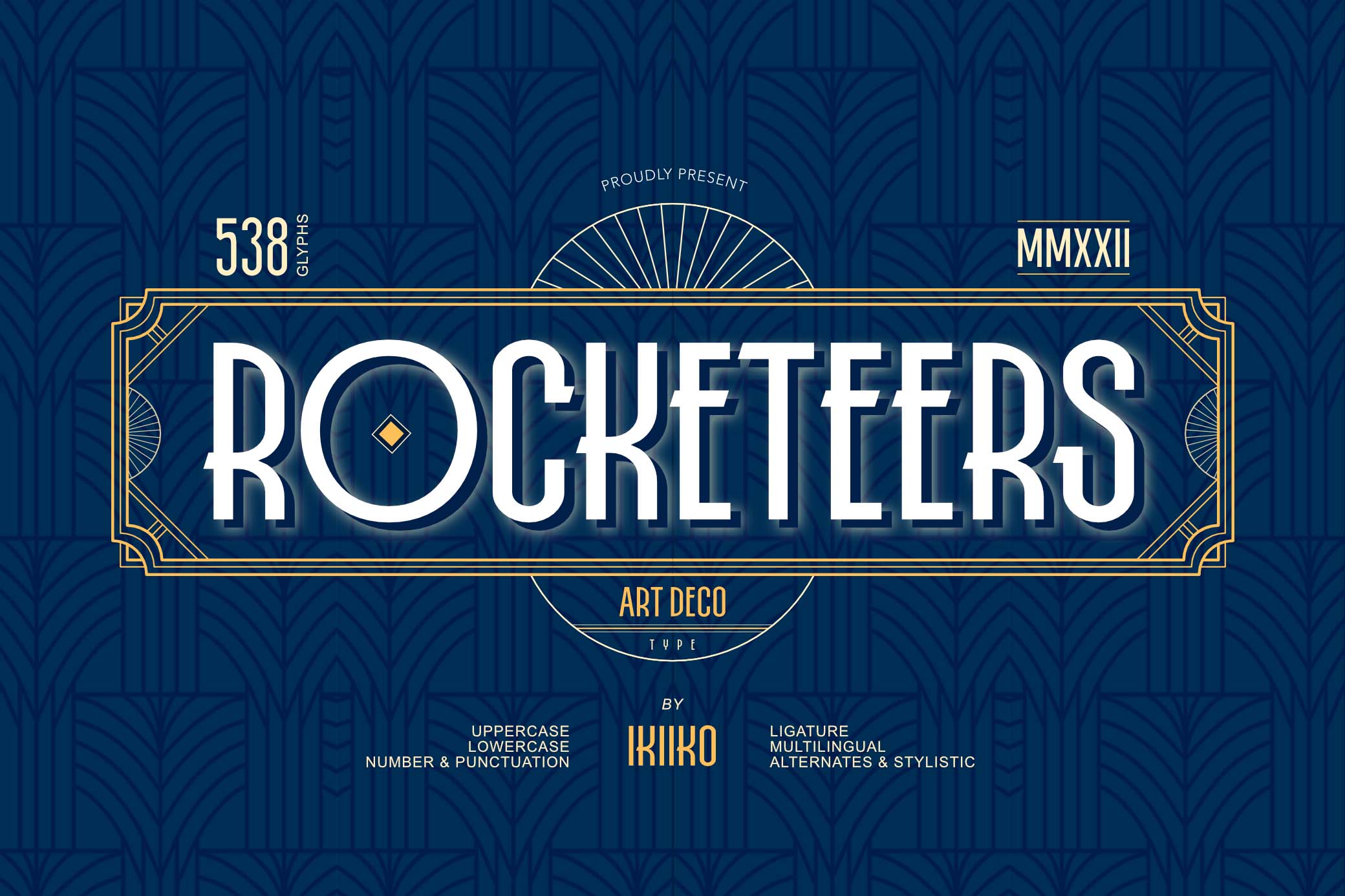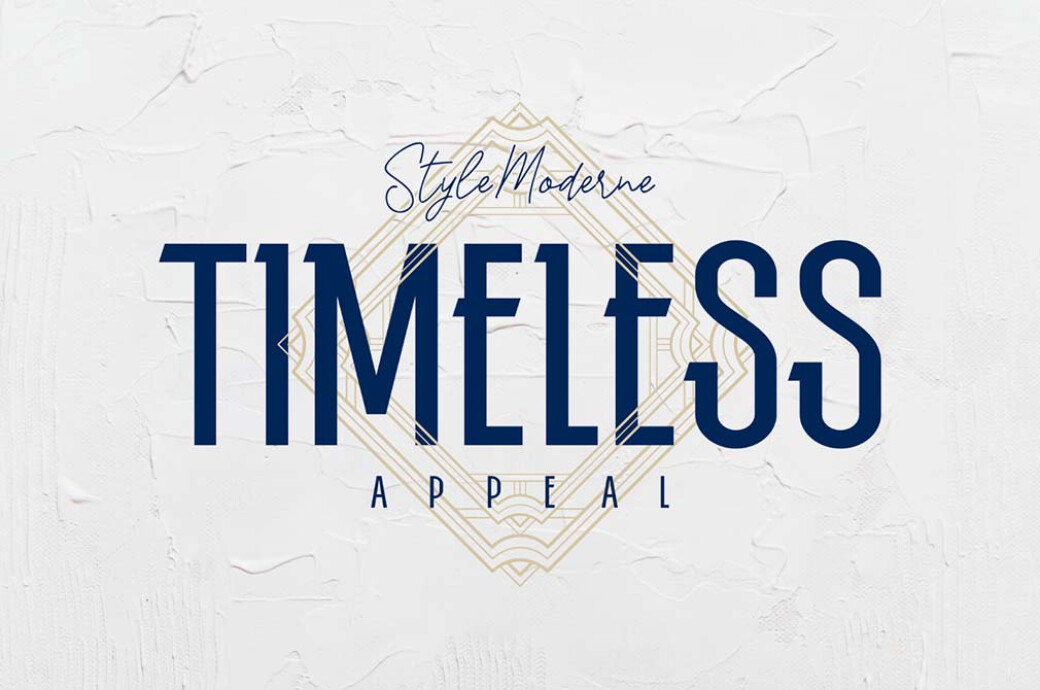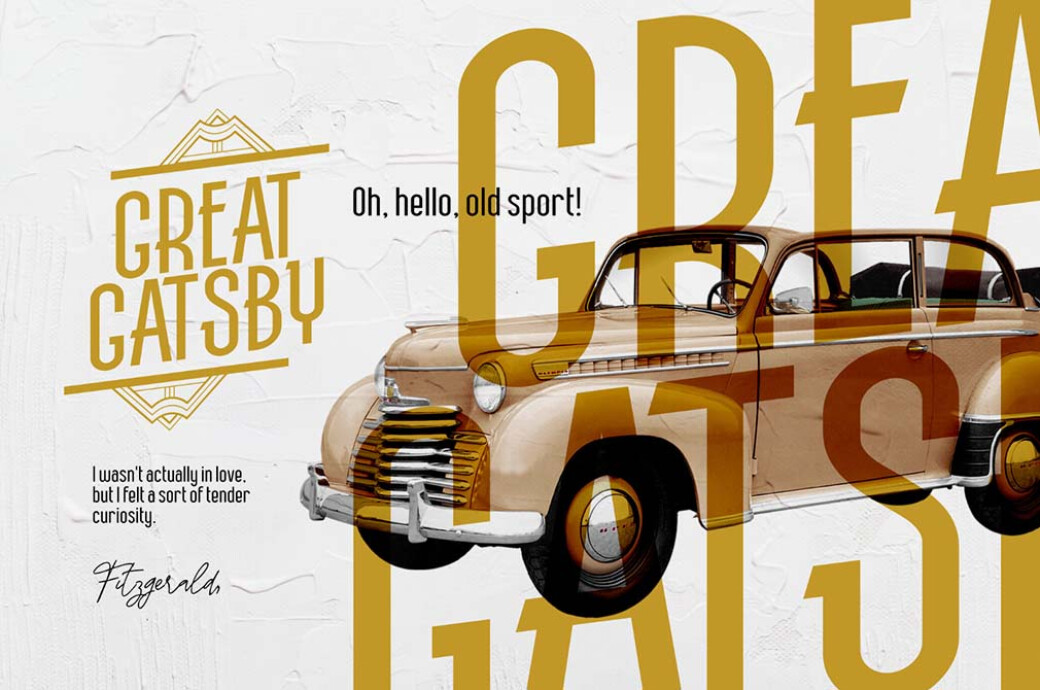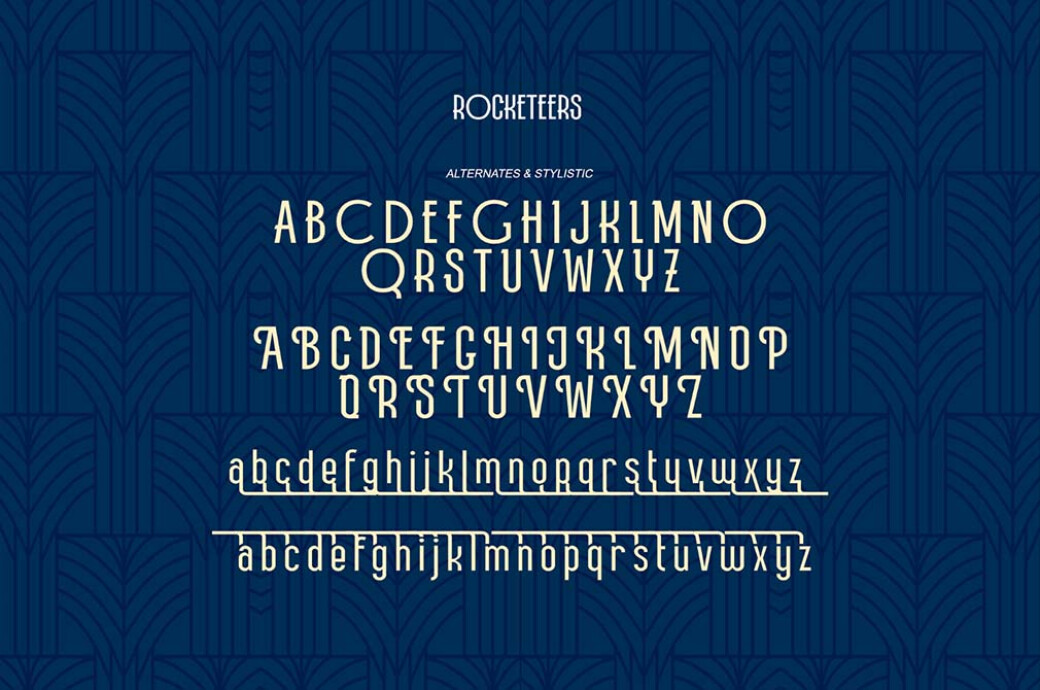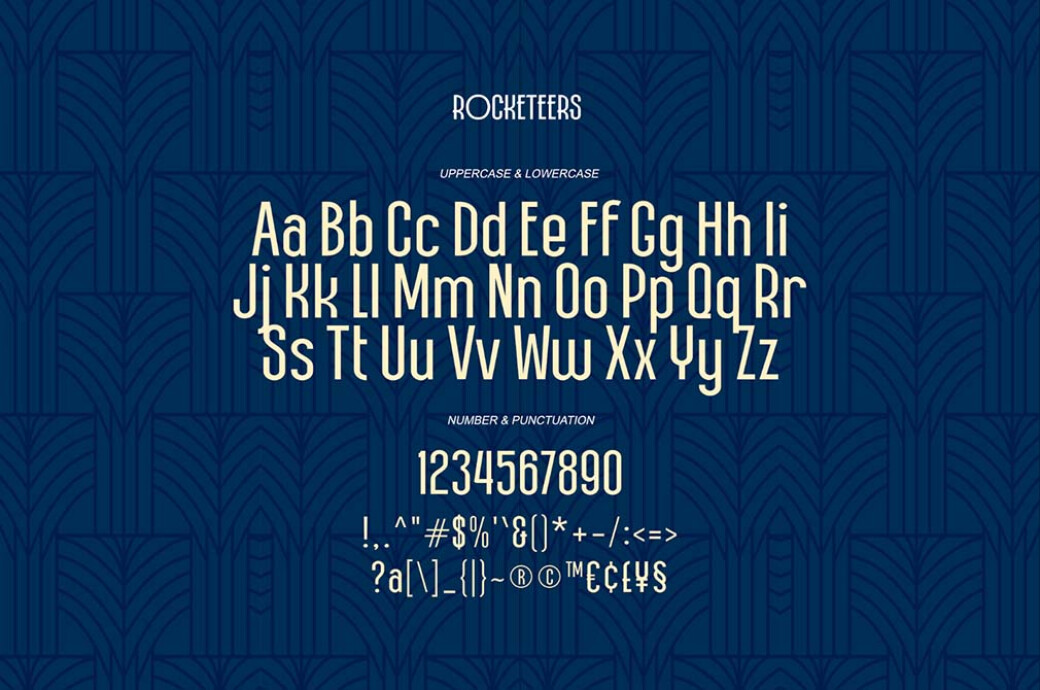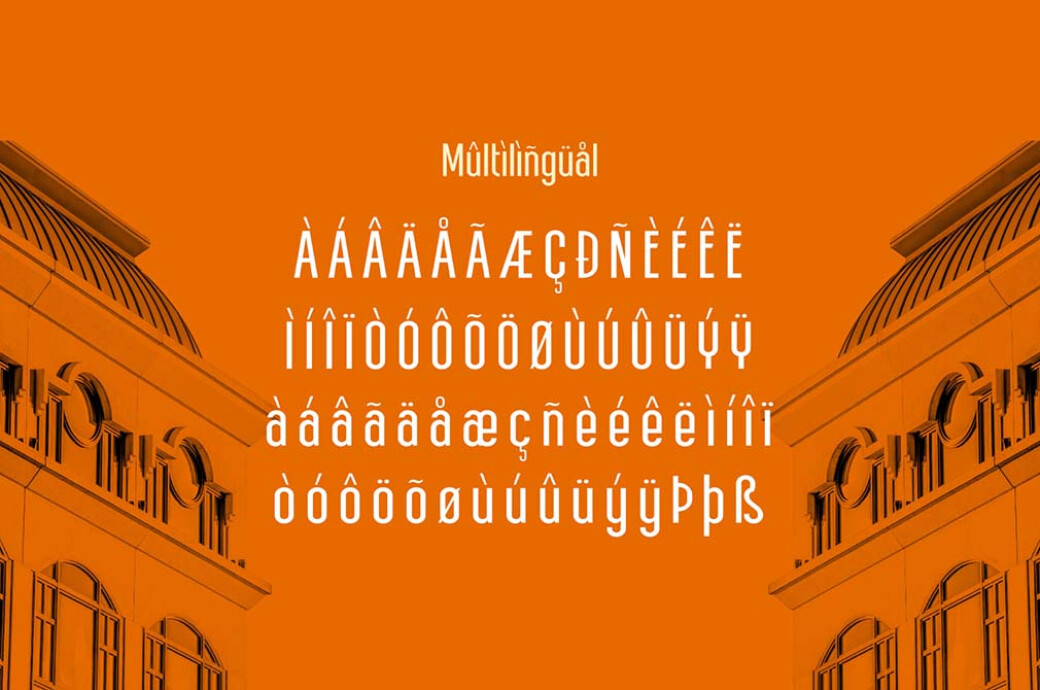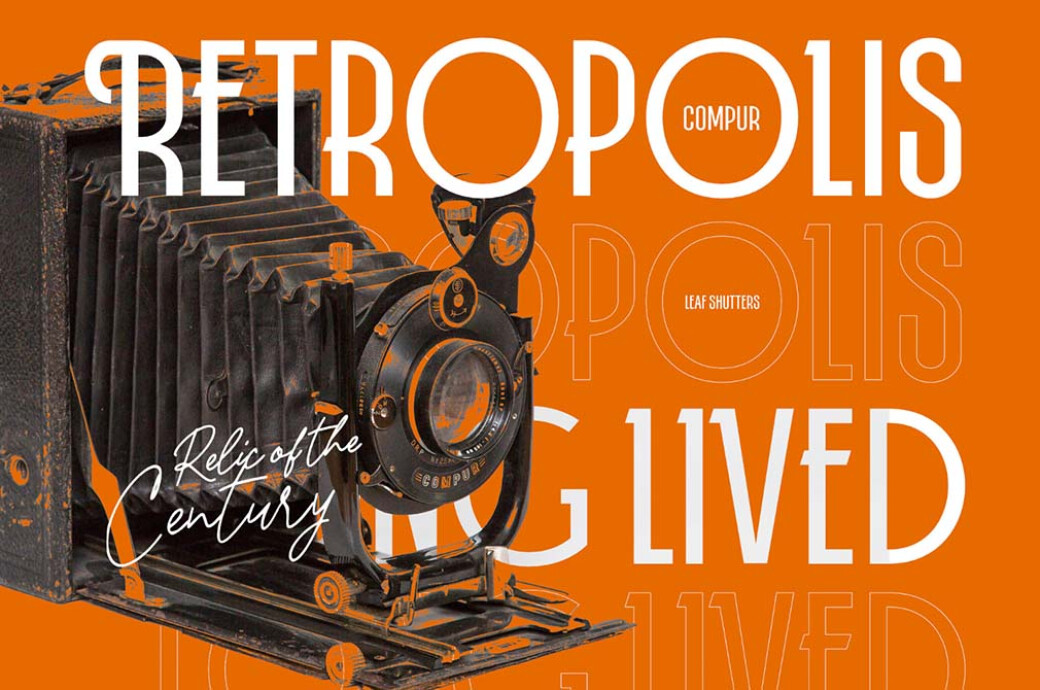
Rocketeers — Art Deco Font
An embodiment of the 1930s era, Rocketeers will add your designs a vintage fleur, making them look elegant, elite and bold at the same time.This font was inspired by old typography trends, but the authors didn’t want to stop there. To make it fit our decade, they also added some modern vibe to it, so now it will fit any type of art. It includes upper and lowercase letters, numbers, punctuation, multilingual support and stylistic alternates, so whatever comes to your mind you’ll be able to transfer on canvas, just like Rocketeers transfers us back in time!